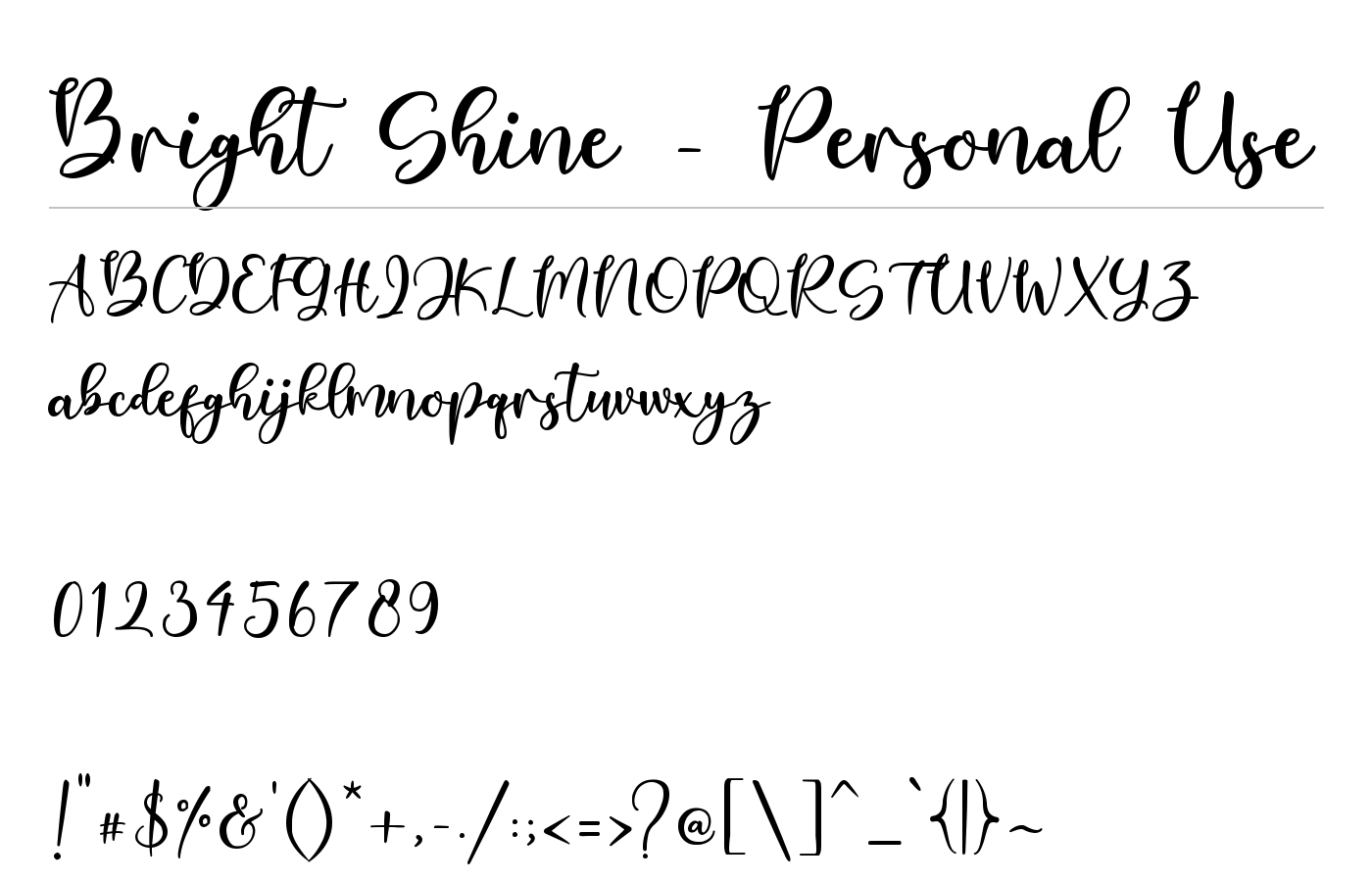
Bright Shine is a delicate, handwritten script font with a playful and elegant charm, featuring smooth, flowing strokes and a moderate contrast between thick and thin lines. Its casual yet refined style makes it perfect for personal projects, invitations, branding, and designs that need a warm, friendly touch. This font works well in headlines and logos where a distinctive, approachable personality is desired.
Bright Shine - Personal Use Font
About Bright Shine - Personal Use Font
| Font family | Bright Shine - Personal Use Font |
| Designer | Aditiyo Dwi Putranto |